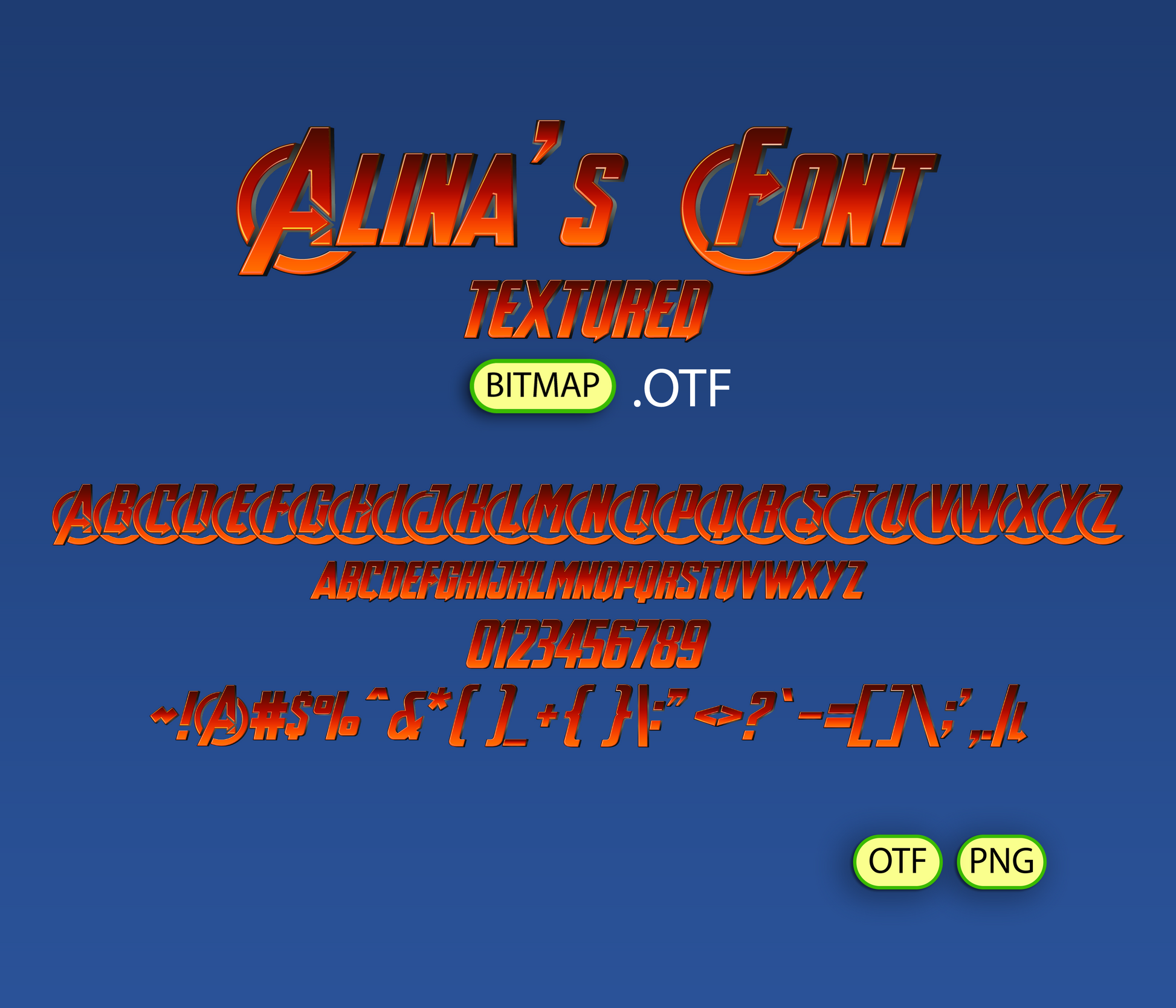
Cosmic Clash Font Textured
Cosmic Clash Font Textured Avengers Secret Wars Font
Step into the ultimate multiversal battle with our Cosmic Clash font. This powerful typeface captures the essence of the greatest hero gathering across realities, where champions unite for the most epic confrontation in existence. Perfect for projects that aim to evoke the grandeur of superhero team-ups and universe-spanning adventures.
Our Cosmic Clash font features bold, dynamic characters with a metallic sheen and battle-worn texture, reflecting the intense nature of multiversal warfare. Ideal for:
Whether you're crafting promotional materials for superhero gatherings, designing merchandise for cosmic battle enthusiasts, or adding an epic touch to personal projects, this font communicates the scale and intensity of multiversal conflicts. Ready to bring the spirit of reality-spanning warfare to your creations? This font is your portal to powerful, impactful design.